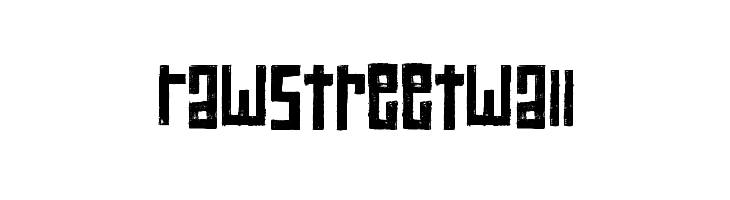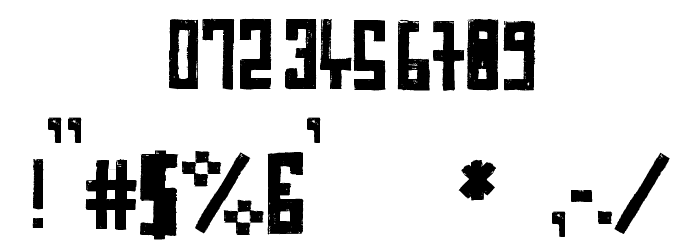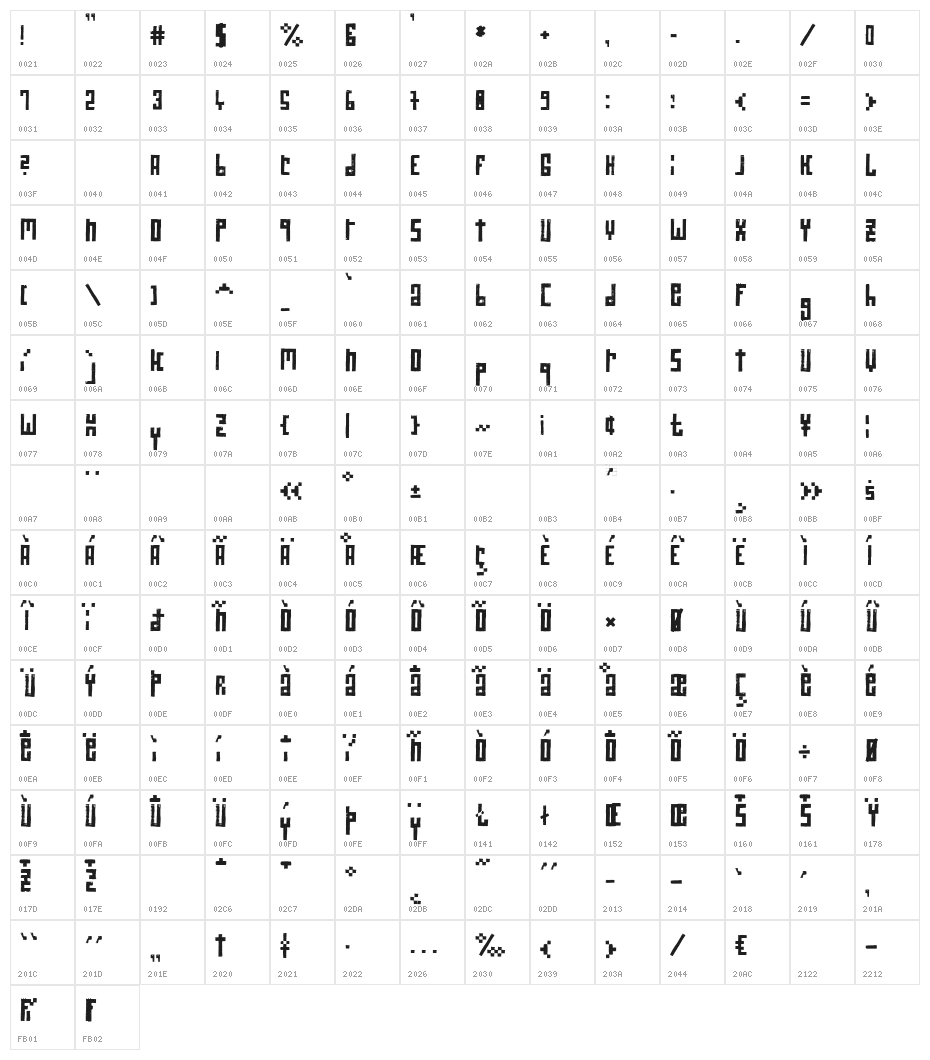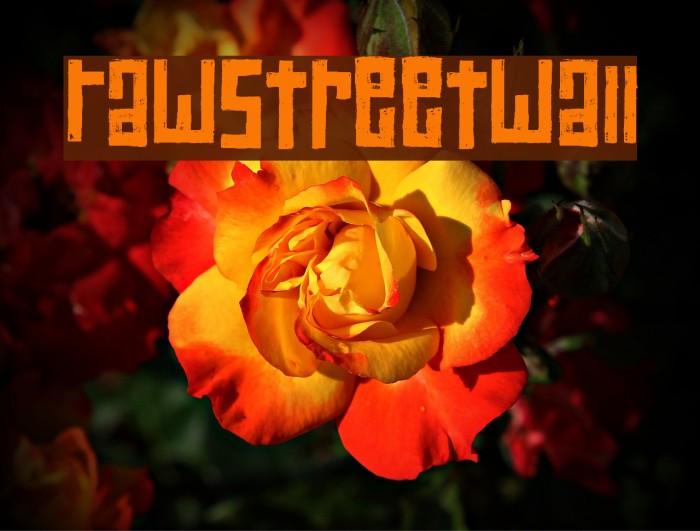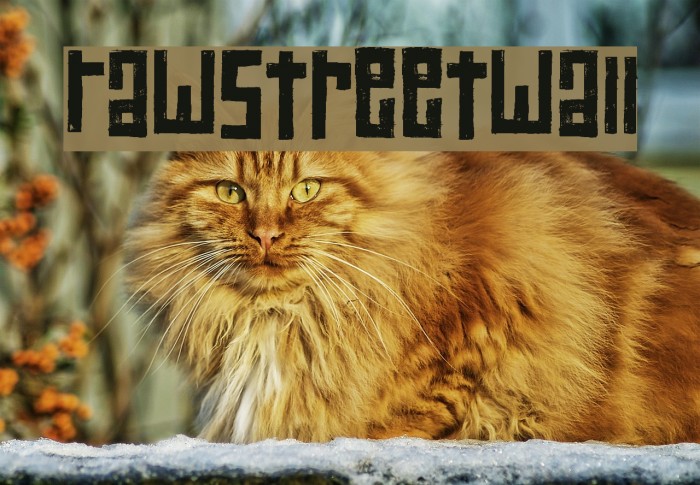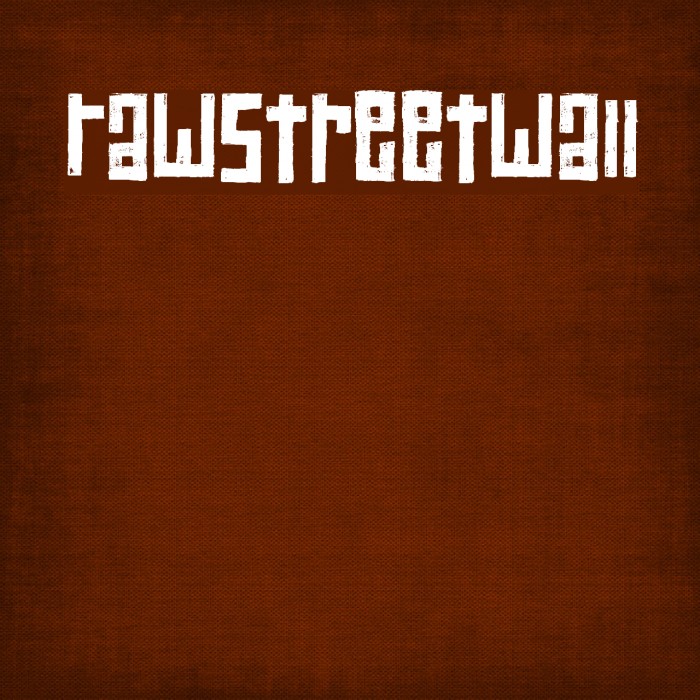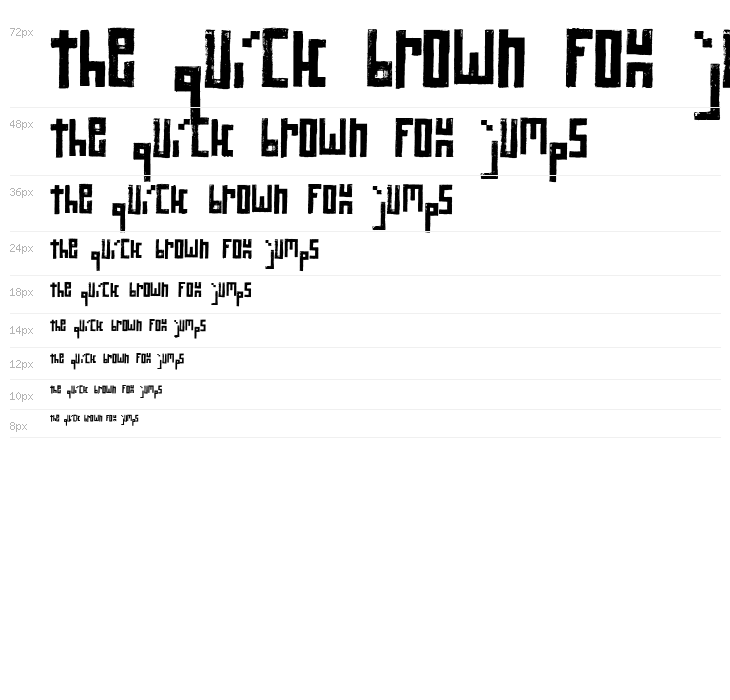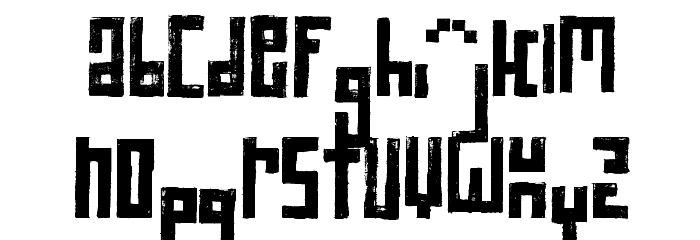
RawStreetWall Font
RawStreetWall Description
This font features a bold, gritty aesthetic reminiscent of urban street art. The characters are blocky and robust, with a distressed texture that gives them a raw, edgy feel. The uppercase and lowercase letters maintain a consistent height, contributing to a uniform appearance. Numbers and special characters follow the same rugged style, enhancing the overall cohesive look. The font's design is perfect for projects that aim to capture an urban, rebellious vibe, making it ideal for posters, album covers, or any creative work that seeks to stand out with a bold statement.
| Overall Style | Urban, Edgy, Raw |
| Proposed Projects | Ideal for posters, album covers, graffiti-inspired designs, and urban-themed branding. |